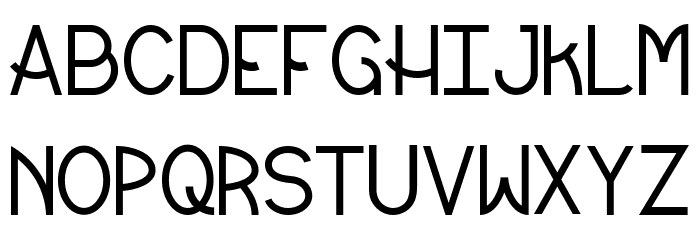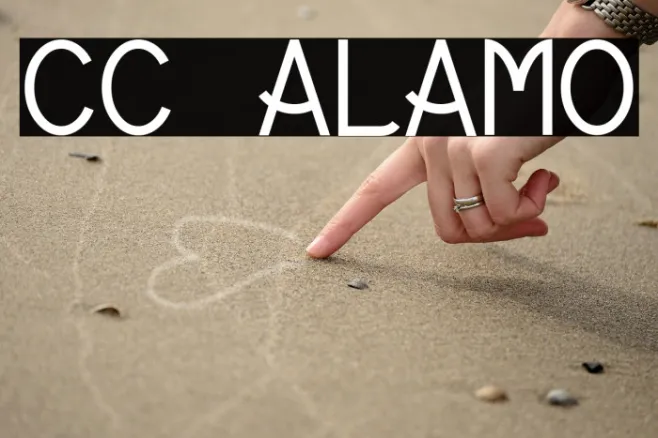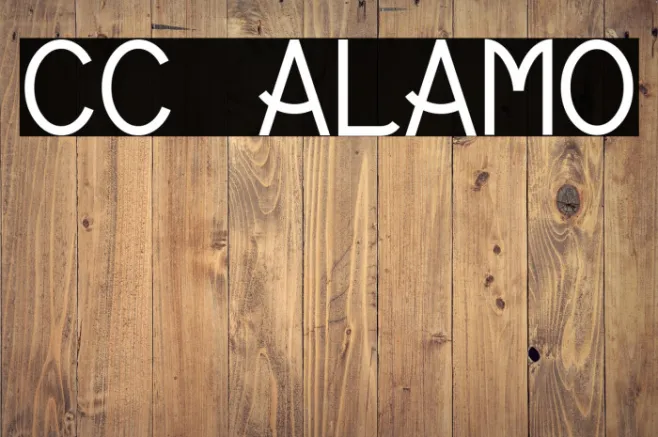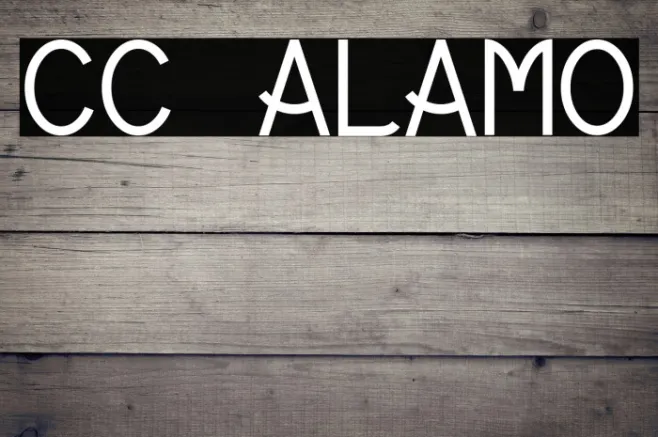
CC Alamo Font
This font features a unique and playful design with a modern twist. The characters are bold and slightly condensed, giving them a strong presence on the page. The strokes are uniform in thickness, providing a clean and consistent look. The letters have a quirky, almost hand-drawn quality, with subtle curves and angles that add personality. The numbers are equally distinctive, maintaining the same playful style. This font is versatile and can be used in various creative projects, from branding to posters.
A playful, modern font with bold, slightly condensed characters and uniform strokes.
- Proposed Projects: Ideal for branding, posters, packaging, and creative design projects.